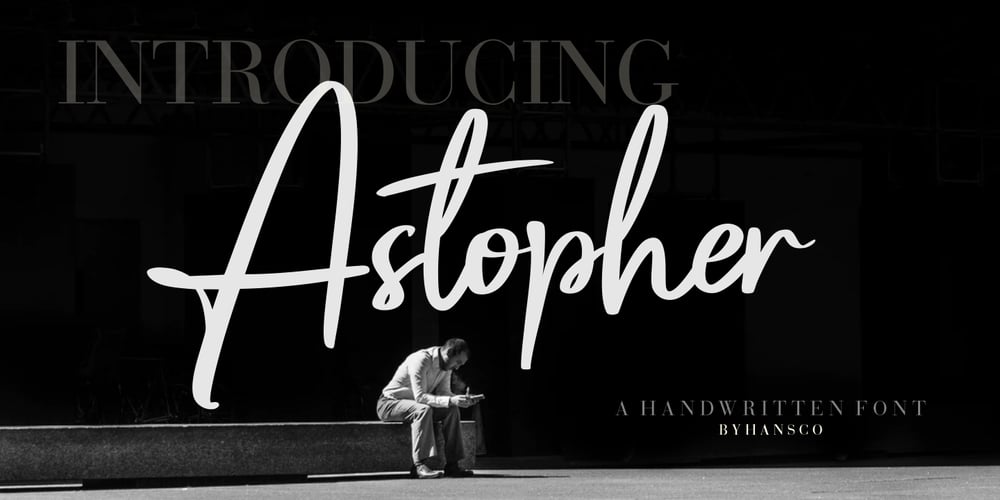
Astopher Font Family was designed by Burhan Afif and published by HansCo. Astopher contains 1 styles and family package options. Astopher was inspired by urban script fonts. With its modern script style, this font will be suitable for various projects, for example: quotes, blog titles, branding, logos, fashion, invitations, greeting cards, posters, business cards, clothing, letters, stationery, and more.This one should make your designs instantly professional and amazingly! Be a perfect professional in a minute and start creating with this font today!Enjoy!